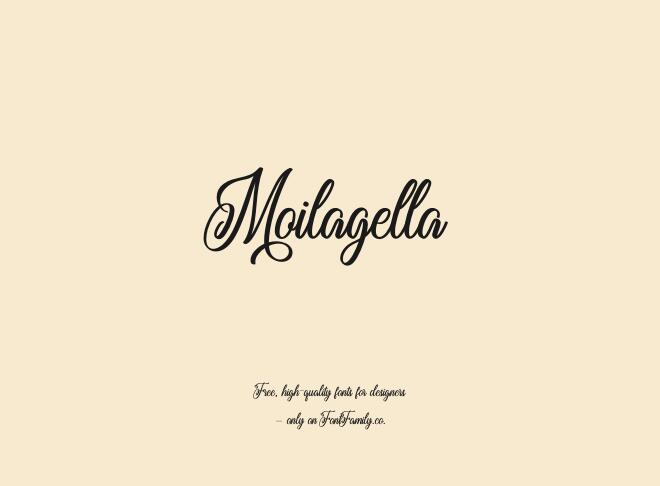
Moilagella Font
Moilagella Font is a modern, decorative, and playful handwritten font that captures the essence of joy and creativity. With its unique style, it brings to life the spirit of modern design while maintaining a playful edge. It's a bit like Comic Sans but with a more sophisticated and contemporary twist. Moilagella Font is perfect for logos, branding, social media posts, and any design that requires a dash of fun and sophistication. Its modern handwritten style makes it stand out in the crowd, and its decorative elements add a touch of elegance. This font is free for personal use, making it an excellent choice for designers who are looking for a unique and playful font to add to their collection.